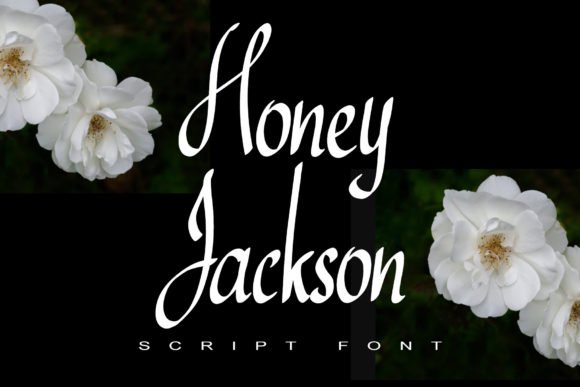
Bring Your Designs to Life with Honey Jackson Font
There’s nothing quite like the thrill of staring at a blank canvas, waiting for inspiration to strike. You’ve got a project to complete, but you’re stuck in a rut. The blank page stares back at you, taunting you to create something amazing. And then, it hits you – a spark of creativity that ignites a fire within. You grab your trusty font library and start browsing, searching for the perfect font to bring your vision to life.
That’s where the Honey Jackson Font comes in – a beautiful, timeless handwritten font that’s sure to elevate your designs to the next level. Whether you’re creating eye-catching logos, branding, or quotes, Honey Jackson Font is the perfect choice. With its unique and beautiful touch, every letter is a work of art that will make your design truly come alive.
Honey Jackson Font Key Features
- Unique Characteristics: Honey Jackson Font features a unique blend of modern and vintage elements, with elegant and refined lines.
- Font Pairing: Honey Jackson Font pairs well with sans-serif fonts, such as Open Sans and Lato, to create a clean and modern look.
Honey Jackson Font Review
Overall, I think Honey Jackson Font has some great qualities, but it also has some areas where it falls short. ✨ One thing I love about this font is its unique, vintage aesthetic. It’s perfect for projects that need a touch of classic charm. The font’s subtle flair and soft curves make it a joy to work with.
Here are some of the things that work well in Honey Jackson Font:
- Unique, vintage aesthetic
- Subtle flair and soft curves
- Perfect for projects that need a touch of classic charm
- May be too ornate for some projects
- Could be difficult to read at very small sizes
- May not be suitable for projects that require a more modern or minimalist look
- ⚠️ Limited language support (only Latin-based languages)
Overall, I think Honey Jackson Font is a great choice for projects that need a touch of classic charm. However, it’s not a one-size-fits-all solution, and you should carefully consider whether it’s the right fit for your project. With a little bit of creative planning, Honey Jackson Font can add a unique and special touch to your design.
Tip: Use the Honey Jackson font for titles and headings to add a touch of elegance to your design.
Tip: Use the Honey Jackson font for logos, branding, and other design elements that require a touch of sophistication.
Tip: Use the Honey Jackson font for headings, titles, and other text elements that require a touch of elegance.
The Honey Jackson font is ideal for:
- Magazine and newspaper headlines
Remember to use the Honey Jackson font in moderation to avoid overwhelming your design.
Alternatives to Honey Jackson Font
Playfair Display is a luxurious and elegant serif font, perfect for high-end branding and designs. It features intricate details and a touch of sophistication, making it ideal for wedding invitations, luxury product labels, or any project that demands refinement. Compared to Honey Jackson Font, Playfair Display has a more refined and sophisticated feel, while still maintaining a touch of elegance.
Great Vibes is a modern script font that exudes a sense of freedom and playfulness. It’s perfect for creative projects that require a relaxed and casual tone, such as fashion branding, advertising, or social media graphics. Compared to Honey Jackson Font, Great Vibes has a more casual and laid-back feel, making it ideal for projects that require a fun and carefree vibe.
Carolyna Pro is a beautiful and elegant script font that features a touch of sophistication and refinement. It’s perfect for high-end branding, luxury product labels, or any project that demands a sense of luxury and elegance. Compared to Honey Jackson Font, Carolyna Pro has a more refined and sophisticated feel, while still maintaining a touch of elegance and playfulness.